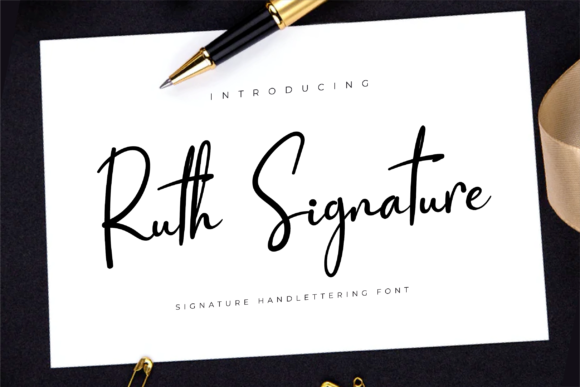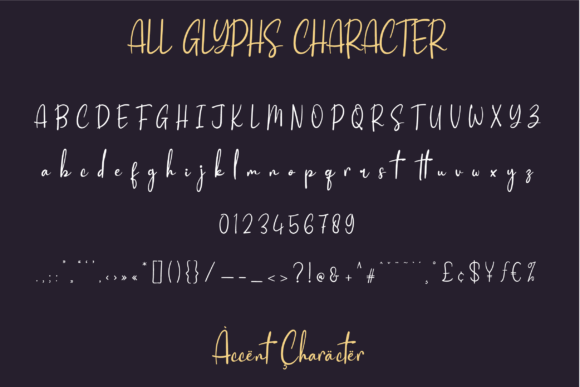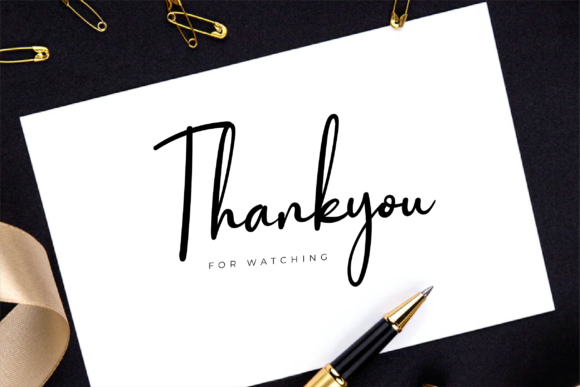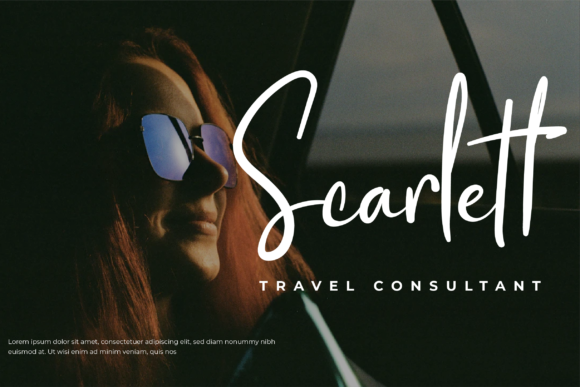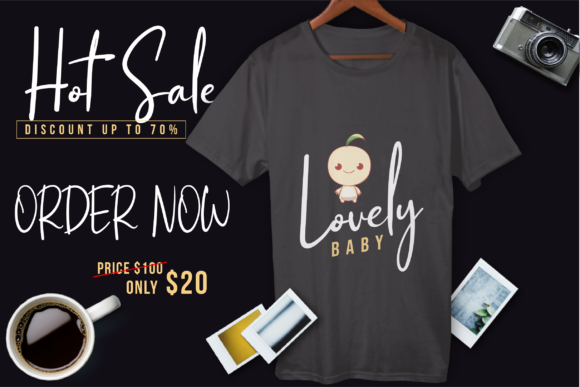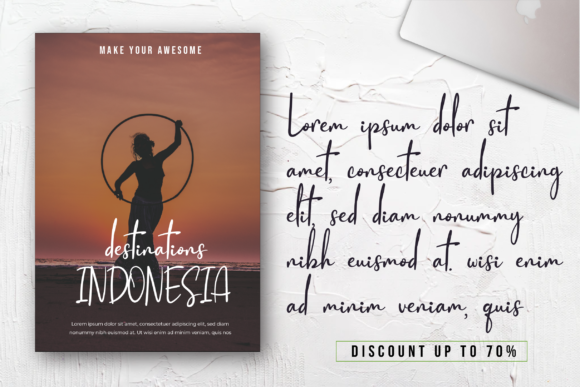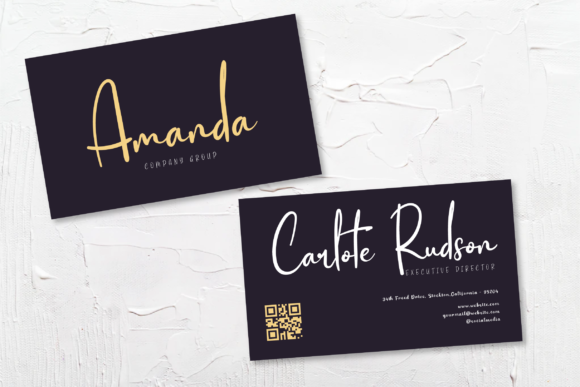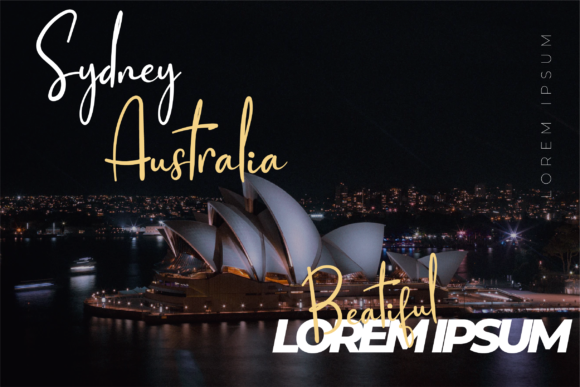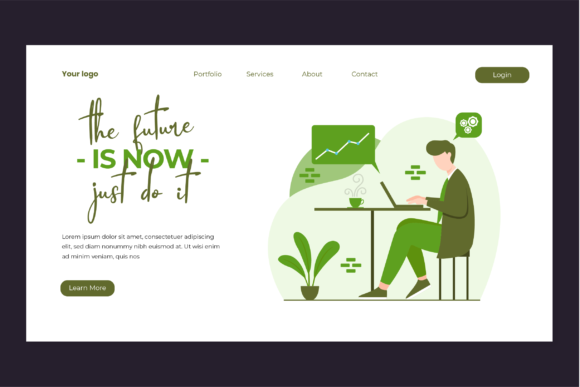
Ruth Signature Font
About Ruth Signature Font
Introducing “Ruth Signature,” a relaxed and timeless handwritten font that exudes effortless beauty and charm. Its stunning appearance makes it a perfect fit for a wide range of design projects, adding a touch of handcrafted elegance to every creation. Prepare to be captivated by its relaxed and timeless style, and watch as it brings a sense of sophistication to your designs, making them truly stunning for occasions such as wedding invitations, thank you cards, quotes, greeting cards, logos, business cards, and every other design that craves a beautiful handwritten touch.
With “Ruth Signature,” you have a font that flows with ease and grace. Its handwritten charm brings a sense of authenticity to your designs, creating a delightful visual experience. Whether you’re working on wedding invitations, branding materials, or social media graphics, this font adds an air of sophistication that leaves a lasting impression.
The versatility of “Ruth Signature” allows it to seamlessly complement different design styles and themes. From classic and timeless to modern and chic, this font adapts effortlessly to your creative vision, making it a reliable choice for all your projects.
Unleash your creativity and watch how “Ruth Signature” enhances your designs with its relaxed and handwritten touch. Whether you’re crafting heartfelt quotes, creating elegant logos, or designing personalized stationery, this font will bring a sense of beauty and authenticity that captivates your audience.
So, immerse yourself in the elegance of “Ruth Signature” and let it become your creative companion. Allow its relaxed and timeless style to inspire your designs, turning them into gorgeous works of art. Whether you’re a seasoned designer or a passionate enthusiast, “Ruth Signature” empowers you to create visuals that stand out and make a statement. Let “Ruth Signature” be the key to unlocking the beauty and charm in your designs, and watch as it takes your projects to new heights of refinement and excellence!